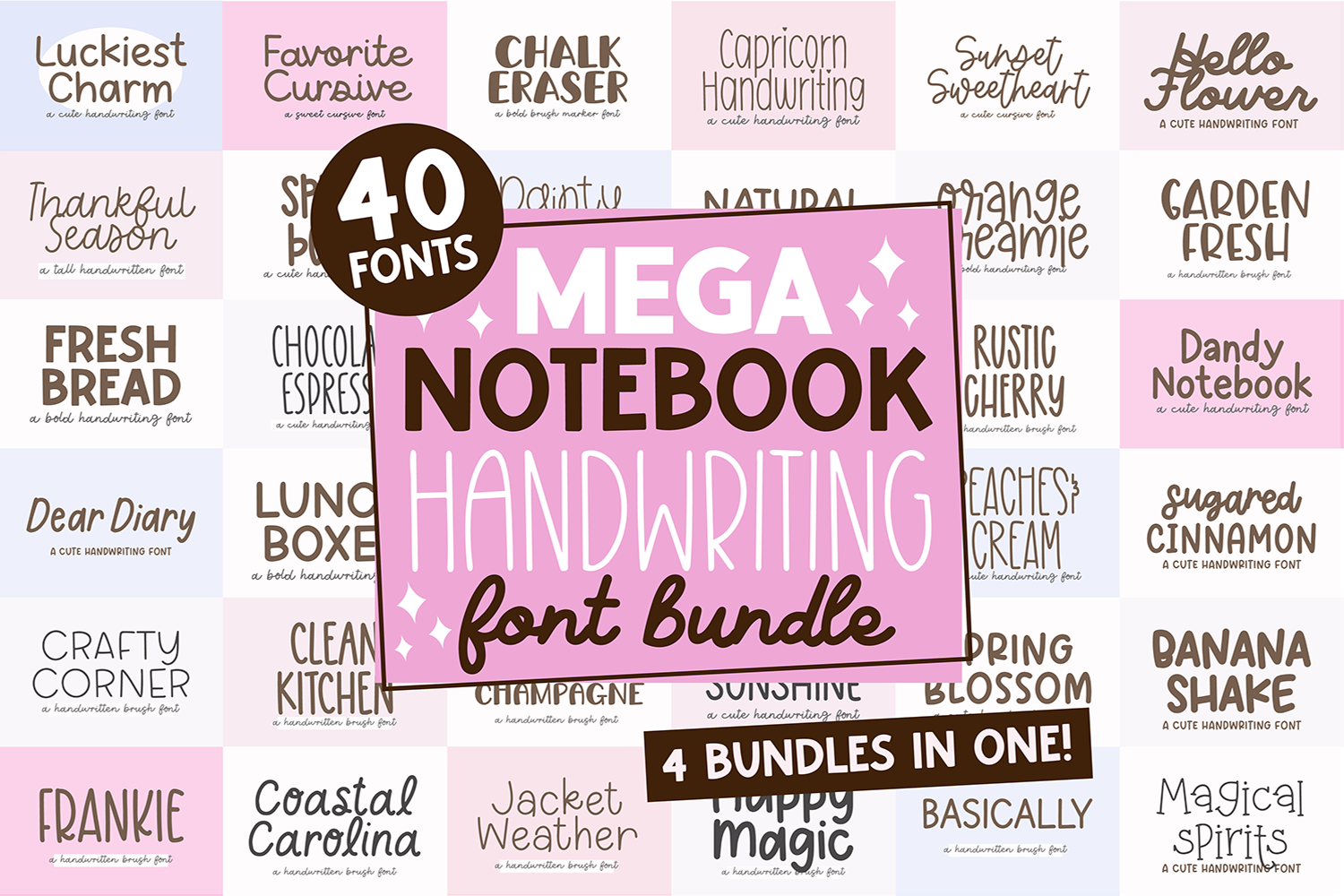
Mega Notebook Goodnotes Font Bundle
MEGA NOTEBOOK HANDWRITING Font Bundle Vol. 1
4 BUNDLES IN 1! Made for Goodnotes and digital planners!
40 fonts specialized for note-taking! Perfect for digital planning for the new year. These will install anywhere that has a font menu.
This mega bundle includes 4 handwriting bundles.
NOTEBOOK HANDWRITING VOL 1 NOTEBOOK HANDWRITING VOL 2 NOTEBOOK HANDWRITING VOL 3 NOTEBOOK HANDWRITING VOL 4